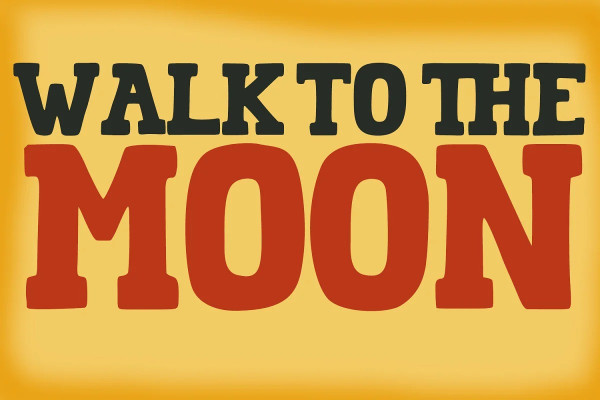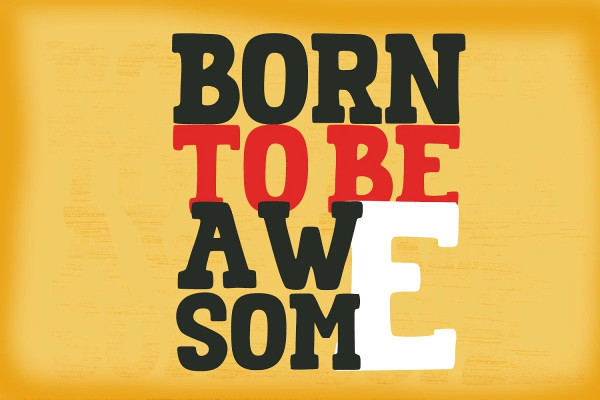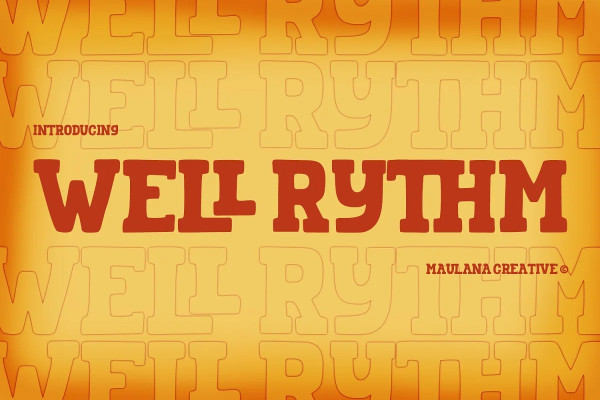
Wellrythm Font
Wellrythm Font is a fancy display slab serif font. With handwritten medium stroke, fun character with a bit of ligatures and alternates. To give you an extra creative work. Wellrythm font support multilingual more than 100+ language. This font is good for logo design, Social media, Movie Titles, Books Titles, a short text even a long text letter and good for your secondary text font with sans or serif. Make a stunning work with Wellrythm font.